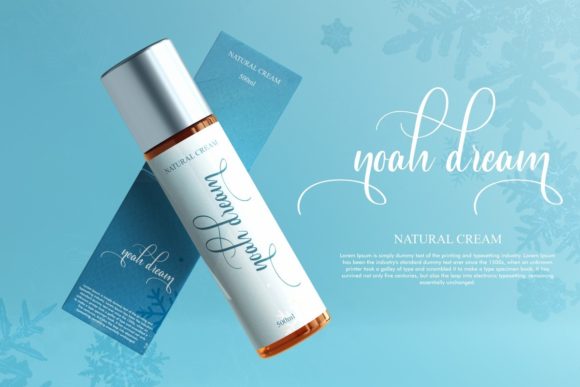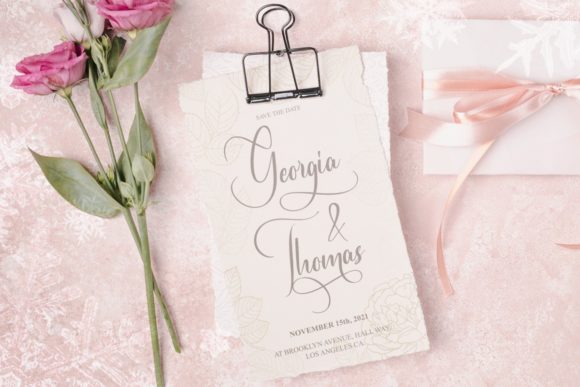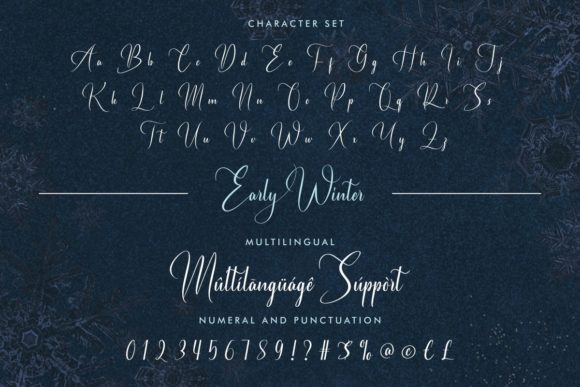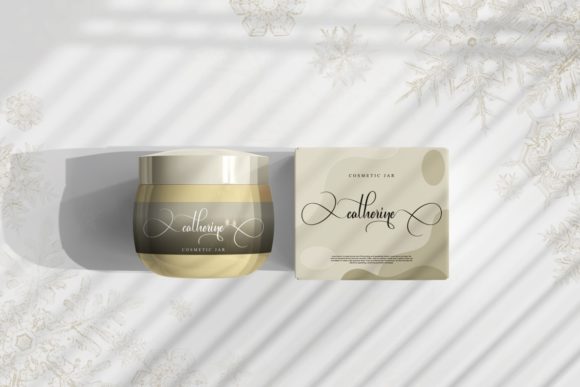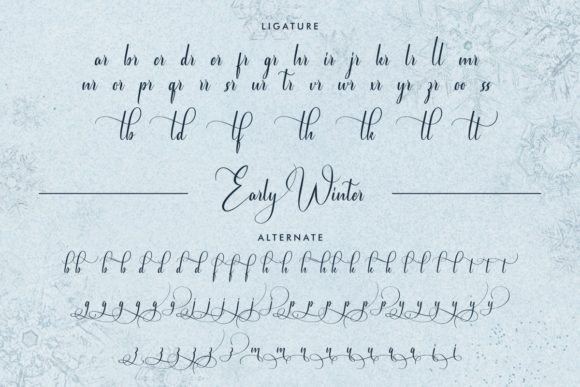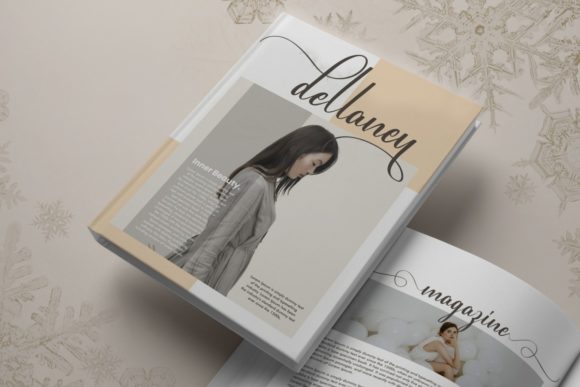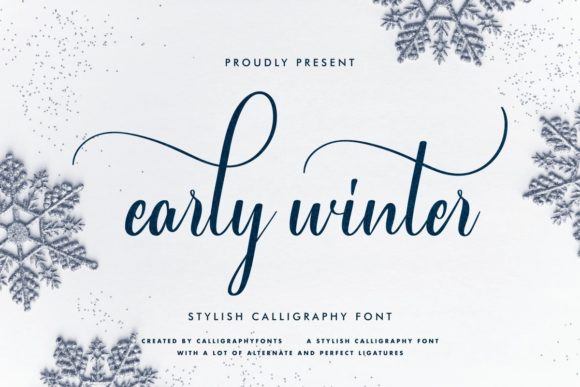
Introducing Early Winter Font: Elevate Your Designs with Elegance
Are you on the hunt for a font that can add a touch of luxury and sophistication to your design projects? Look no further than the Early Winter Font. This beautiful, light handwritten font is sure to make a stunning impact on any design you create. With its unique feel and elegant style, Early Winter Font is the perfect choice for designers and crafters looking to elevate their work.
What Makes Early Winter Font So Special?
Early Winter Font is more than just a pretty face. This font is carefully crafted with a unique feel that sets it apart from other fonts on the market. Its light, airy texture gives it a sense of elegance and sophistication, making it perfect for designs that require a touch of luxury. Whether you’re working on a branding project, a website design, or a crafting project, Early Winter Font is sure to add a level of refinement and polish.
The Power of PUA Encoding
One of the standout features of Early Winter Font is its PUA (Private Use Area) encoding. This means that you can access all of the amazing glyphs and ligatures with ease, giving you even more creative possibilities. With PUA encoding, you can unlock a world of typographic possibilities, from intricate swashes to elegant flourishes. This feature makes it easy to add a personal touch to your designs and take them to the next level.
Early Winter Font is a versatile font that is perfect for a wide range of design projects. Whether you’re a professional designer or a crafter looking to add a personal touch to your work, this font is sure to inspire. Here are just a few ways you can use Early Winter Font:
- Branding and Logo Design: Use Early Winter Font to create a luxurious and sophisticated brand identity that will set you apart from the competition.
- Website Design: Add a touch of elegance to your website with Early Winter Font, perfect for headings, titles, and other design elements.
- Crafting and DIY Projects: Use Early Winter Font to add a personal touch to your crafting and DIY projects, from papercrafting to journaling.
- Social Media Graphics: Create stunning social media graphics with Early Winter Font, perfect for sharing on Instagram, Facebook, and more.
Tips for Using Early Winter Font
To get the most out of Early Winter Font, here are a few tips to keep in mind:
- Use it sparingly: Early Winter Font is a statement font, so use it sparingly to make a big impact.
- Experiment with colors: Try pairing Early Winter Font with different colors to create a unique and eye-catching design.
- Mix and match: Combine Early Winter Font with other fonts to create a unique and interesting typographic combination.